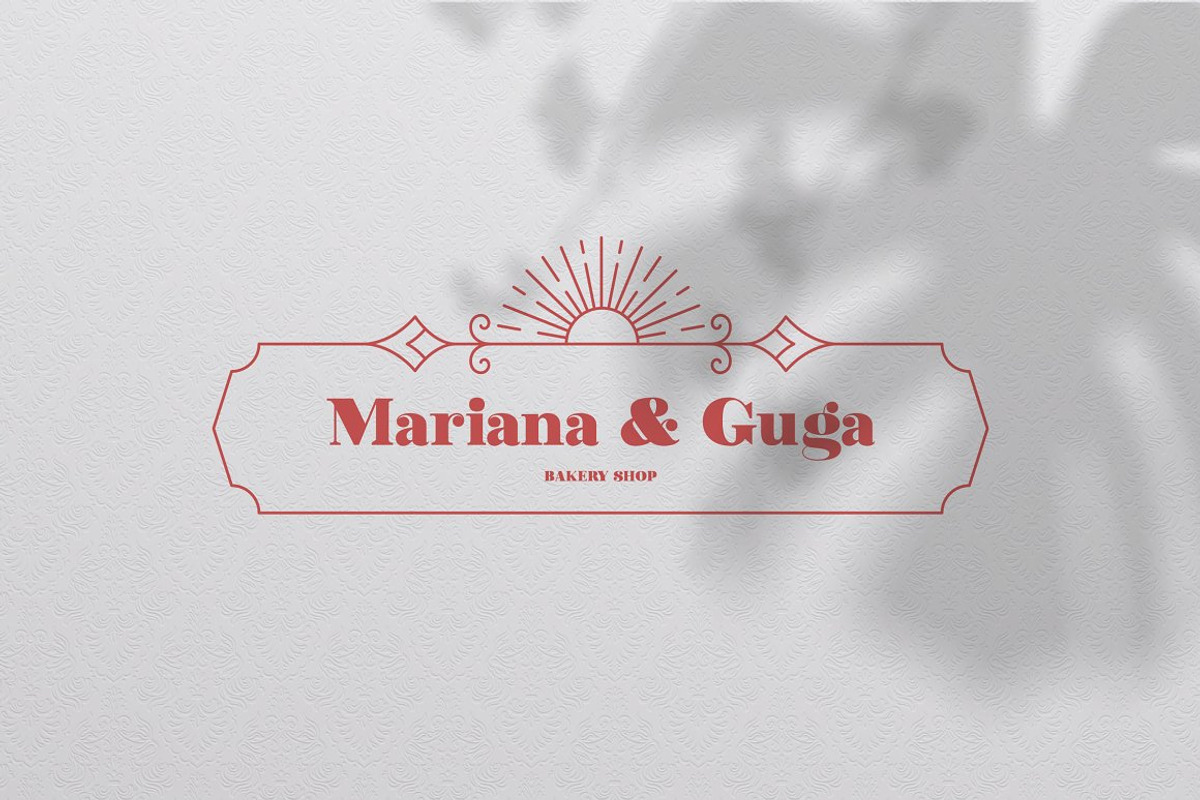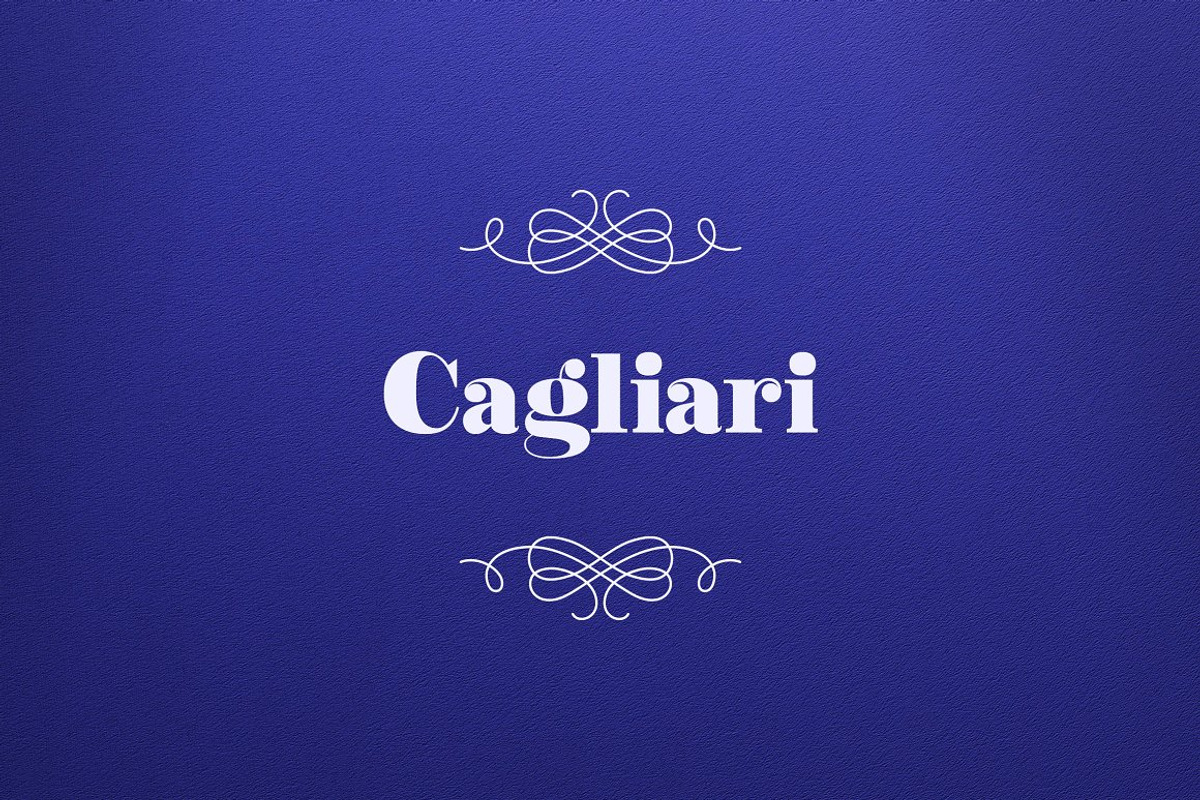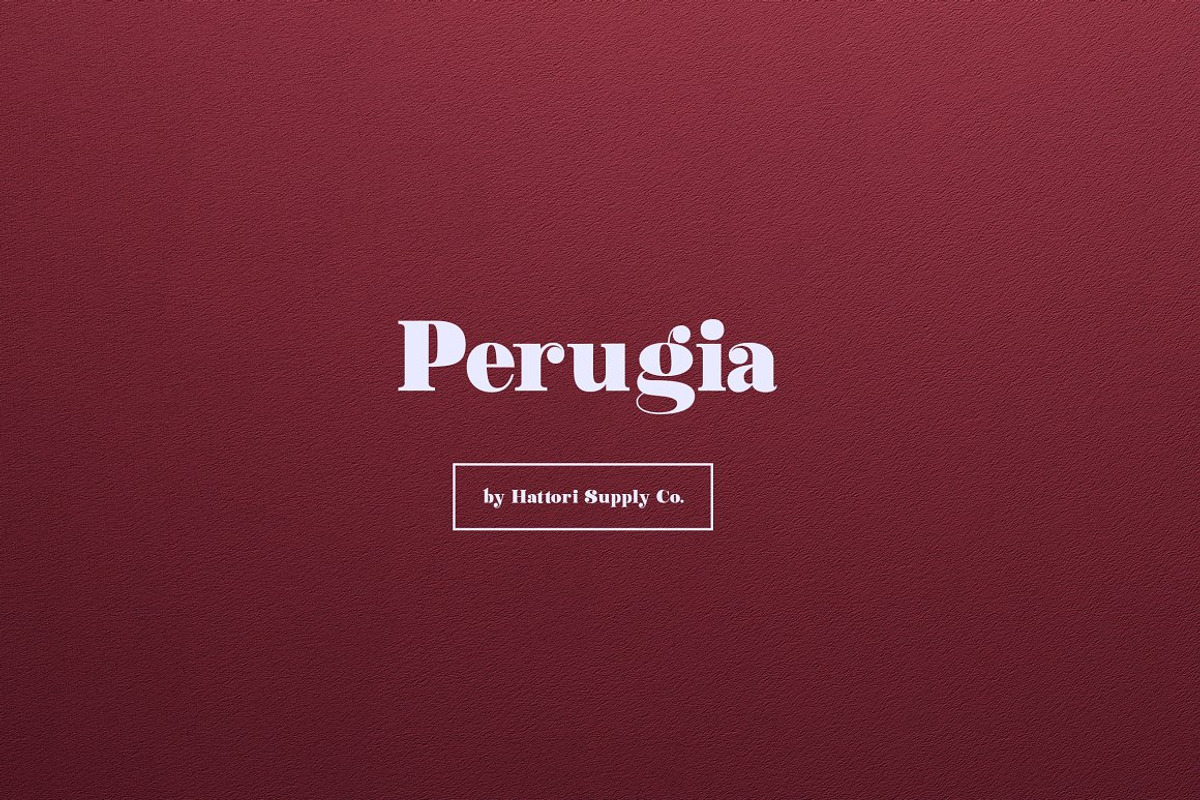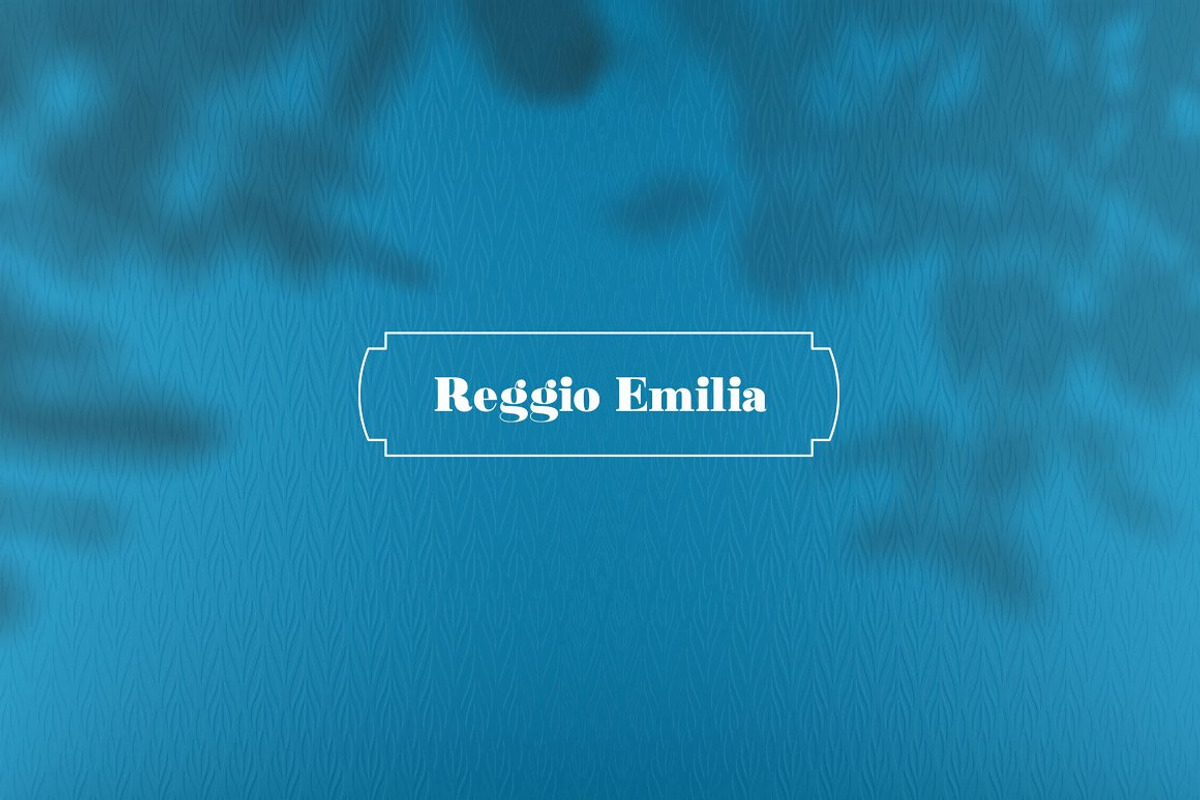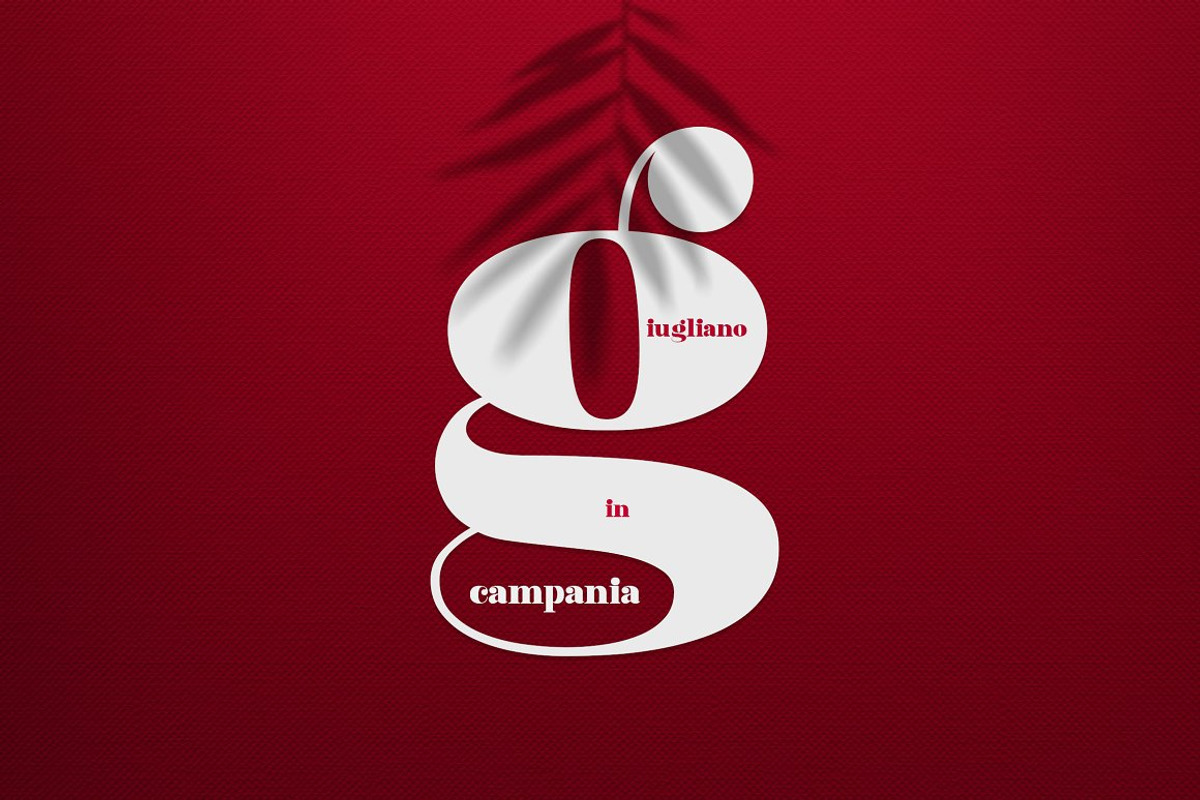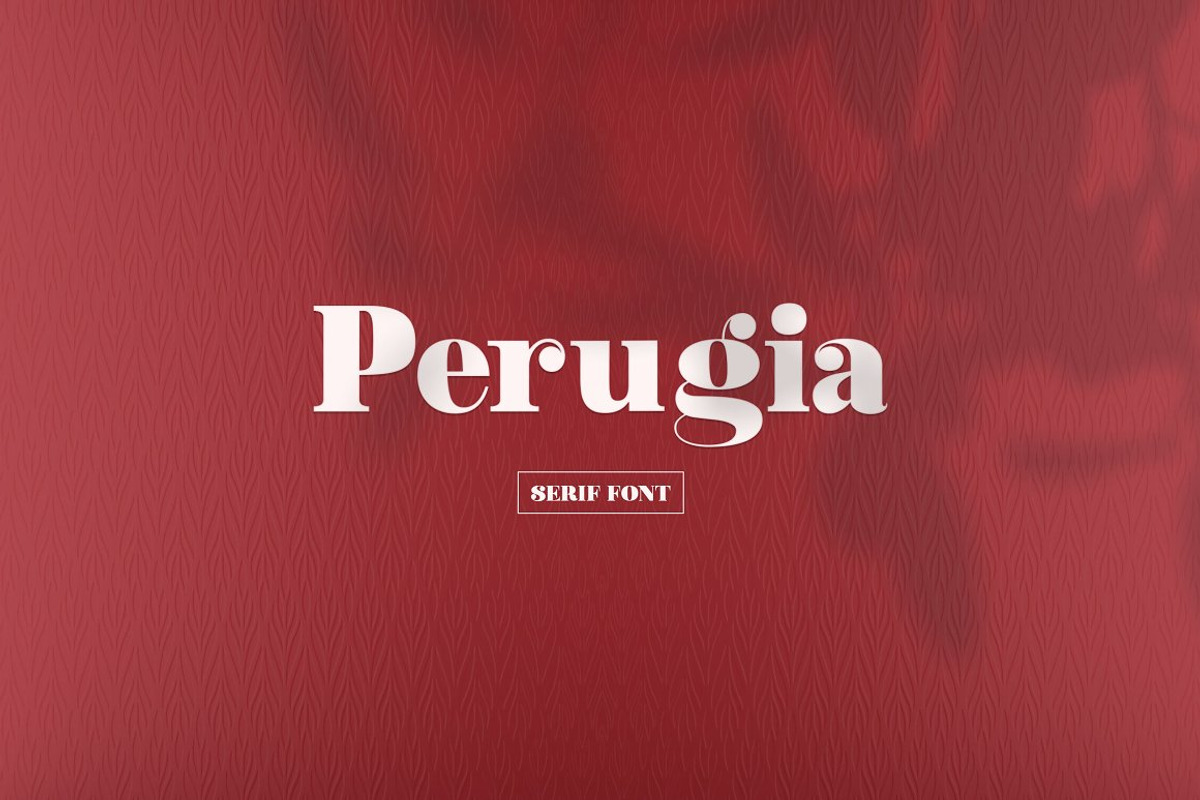
Perugia - Serif Font
Introducing Perugia: a bold and curvy serif font designed for impactful titles, captivating headlines, and unforgettable branding. Inspired by the rich heritage of an Italian city, Perugia combines elegance and strength to create a visually striking typographic experience.
With its distinct serifs and graceful curves, Perugia demands attention and adds a touch of sophistication to any design project. Whether you're working on a magazine cover, a logo, or a promotional campaign, this font's bold presence will make your message stand out.
Perugia is versatile, lending itself to a wide range of applications. Its confident strokes and carefully crafted letterforms make it perfect for bold titles that leave a lasting impression. Captivate your audience with Perugia's strong personality, and let your designs reflect the charm and allure of an Italian city.
Experience the captivating power of Perugia. Elevate your design projects with this bold and curvy serif font, and let its Italian-inspired essence breathe life into your creative endeavors.